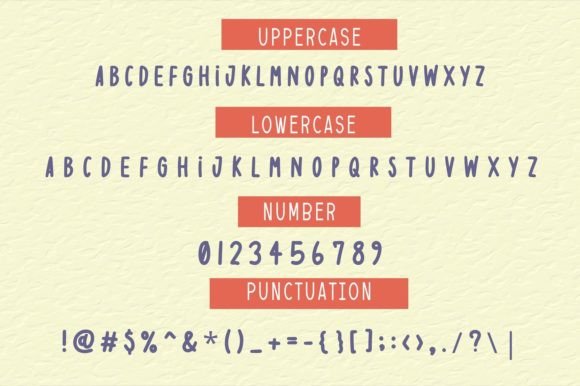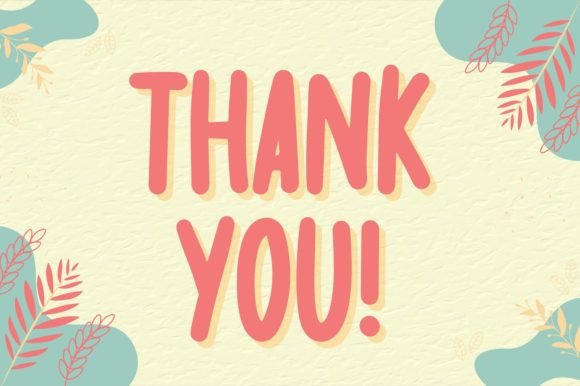
The Magic of Gabriella Font: A Designer’s New Best Friend
I’ll never forget the time I was working on a whimsical branding project for a children’s party planning service. I had all the elements in place – the color palette, the logo concept, and the overall aesthetic – but something was missing. The font I had chosen just wasn’t doing it for me. It was too formal, too stiff, and just didn’t capture the playful vibe I was going for. That’s when I stumbled upon Gabriella Font, and let me tell you, it was love at first sight! 💕
Gabriella is a cute handwritten font that embodies playfulness and authenticity. Its lightness makes it suitable for a wide range of design projects, from blog posts and logos to invitations and photo albums. In this article, I’ll share my experience with Gabriella Font, its features, and how to make the most of it in your designs.
An Honest Review of Gabriella Font
- ✨ Playful and whimsical: Gabriella Font has a carefree, handwritten feel that’s perfect for projects that need a personal touch.
- ✅ Highly versatile: It works well for both digital and print projects, and its lightness makes it suitable for a wide range of design applications.
- 💫 Easy to read: Despite its playful nature, Gabriella Font is surprisingly easy to read, even at smaller font sizes.
While Gabriella Font is an amazing addition to any design project, there are a few things to keep in mind:
- ⚠️ Limited use for formal projects: Gabriella Font is best suited for informal or playful projects. It may not be the best choice for formal or professional designs.
- 🤔 Kerning issues: As with any handwritten font, there may be some kerning issues, especially when using it at larger font sizes.
The Backstory of Gabriella Font
While I couldn’t find any information on the actual designer of Gabriella Font, I like to imagine that it was created by a talented typographer who wanted to capture the essence of playfulness and authenticity in a font. Perhaps she was inspired by her own childhood, filled with scribbles and doodles, and wanted to bottle that magic into a font. Whatever the story, Gabriella Font is a true gem that deserves to be in every designer’s toolkit.
| Font Name | Gabriella Font |
| Author | Brown Cupple Fonts |
Q: What is Gabriella Font best suited for?
A: Gabriella Font is best suited for informal or playful projects, such as blog posts, logos, branding, ads, invitations, and photo albums.
Q: Is Gabriella Font easy to read?
A: Yes, despite its playful nature, Gabriella Font is surprisingly easy to read, even at smaller font sizes.